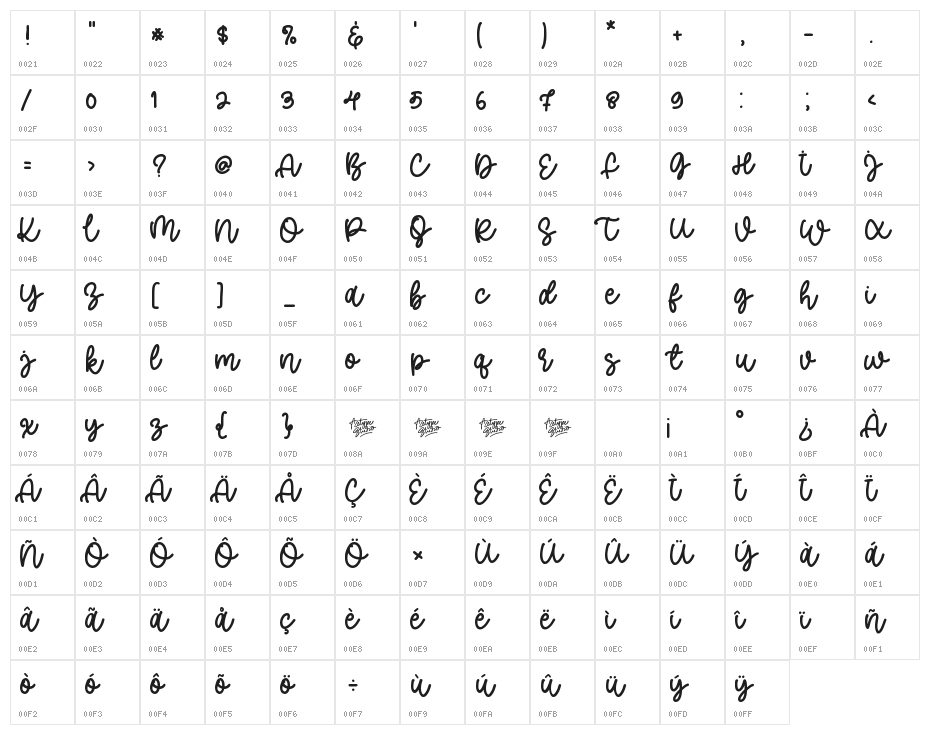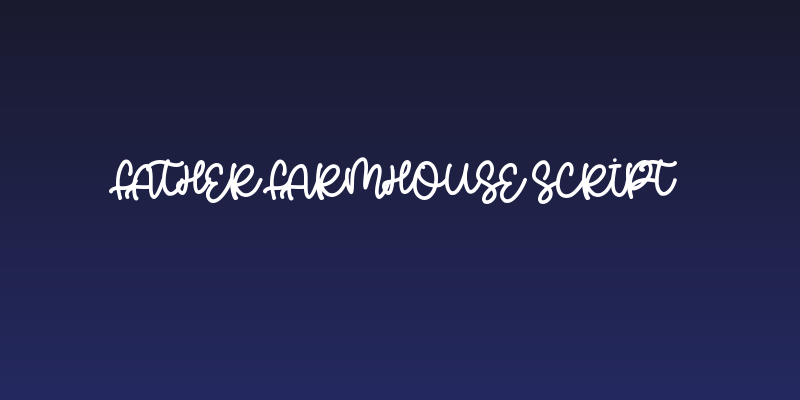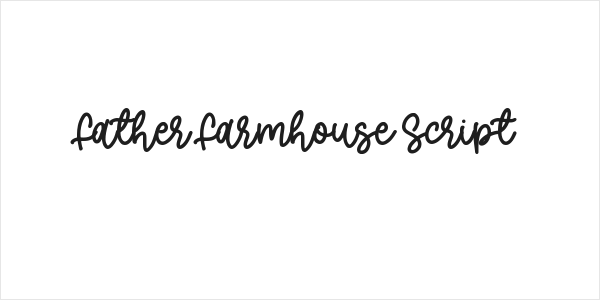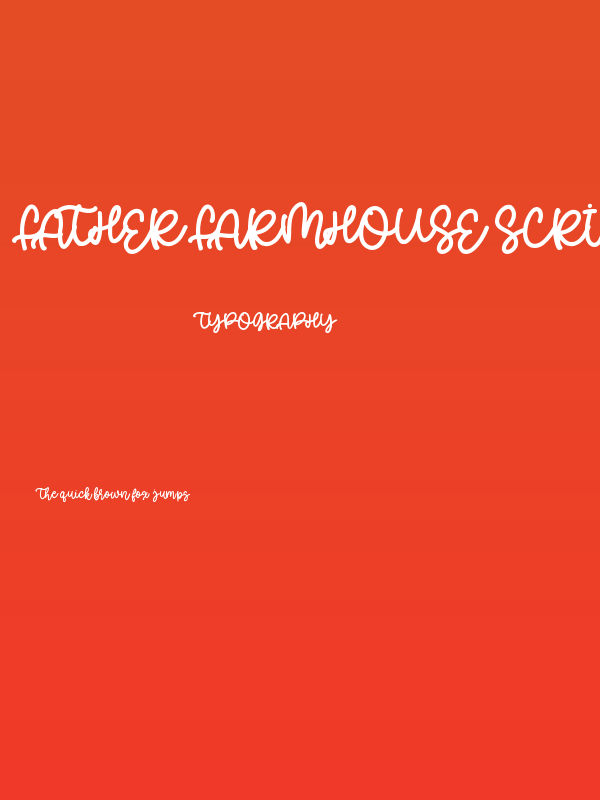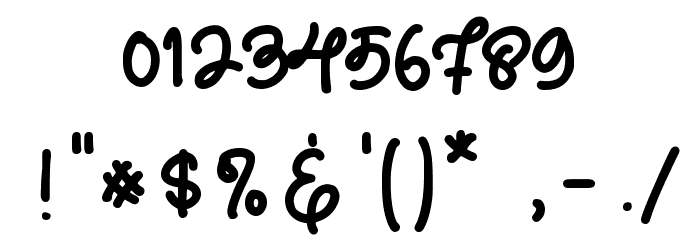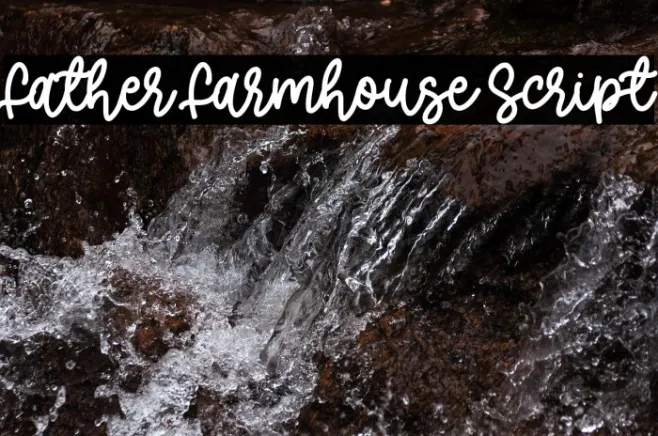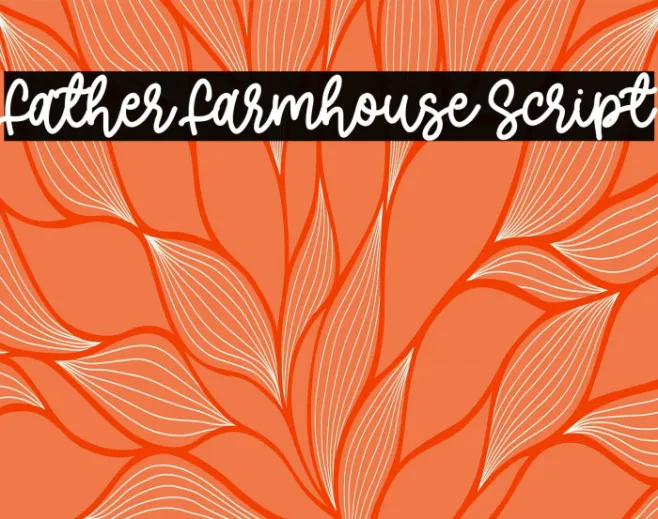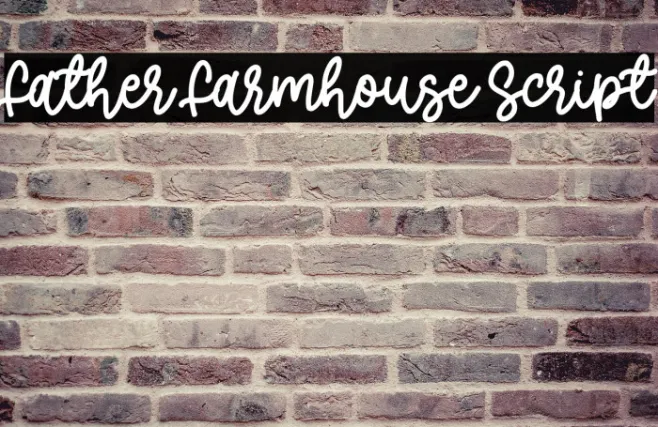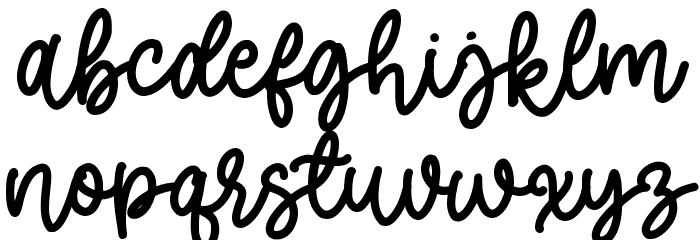
Father Farmhouse Script Font
Father Farmhouse Script Description
This font features a charming, handwritten script style that exudes a rustic and homey feel. The letters are connected with smooth, flowing strokes, giving it a continuous and elegant appearance. The uppercase and lowercase letters maintain a consistent style, with rounded edges and a slightly playful character. The numerals and special characters are crafted to match the overall aesthetic, ensuring a cohesive look across all text. This font is perfect for adding a personal touch to any project, with its inviting and warm design.